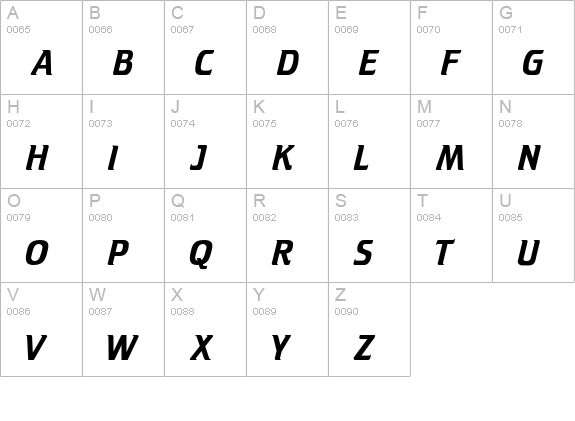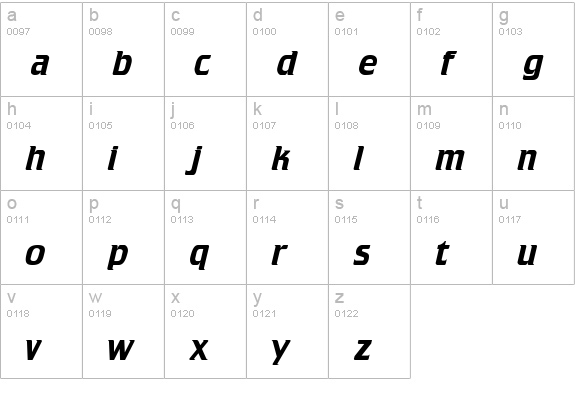
StarTrekTNGCrille Font Details
Introducing StarTrekTNGCrille font, a stunning typeface that embodies the futuristic and adventurous spirit of the iconic Star Trek: The Next Generation series. This font is a perfect homage to the beloved sci-fi franchise, capturing its essence and bringing it to life in the world of typography. Crafted with precision and attention to detail, StarTrekTNGCrille font showcases sleek and modern letterforms that evoke a sense of technological innovation and exploration. Every character is meticulously designed to reflect the sleek aesthetic of the starship Enterprise, seamlessly blending elegance with a touch of futurism. But what sets StarTrekTNGCrille font apart is not just its exceptional design; it is the fact that it is freely available to download at FontsMarket.com. Yes, you read that right - this incredible typeface can be yours without any cost. It's a font that truly embraces the spirit of the Star Trek franchise, where the idea of a future where knowledge and resources are shared freely is at the forefront. Whether you're a graphic designer, a fan of Star Trek, or simply someone who appreciates the beauty of well-crafted typography, StarTrekTNGCrille font is a must-have in your collection. Let your creativity boldly go where no one has gone before, with this free and captivating font that captures the essence of a beloved sci-fi universe. So why wait? Head over to FontsMarket.com and download StarTrekTNGCrille font today, and embark on a typographic journey that will transport you to the exciting world of Star Trek: The Next Generation. May your designs be as captivating as the adventures of Captain Picard and his crew!